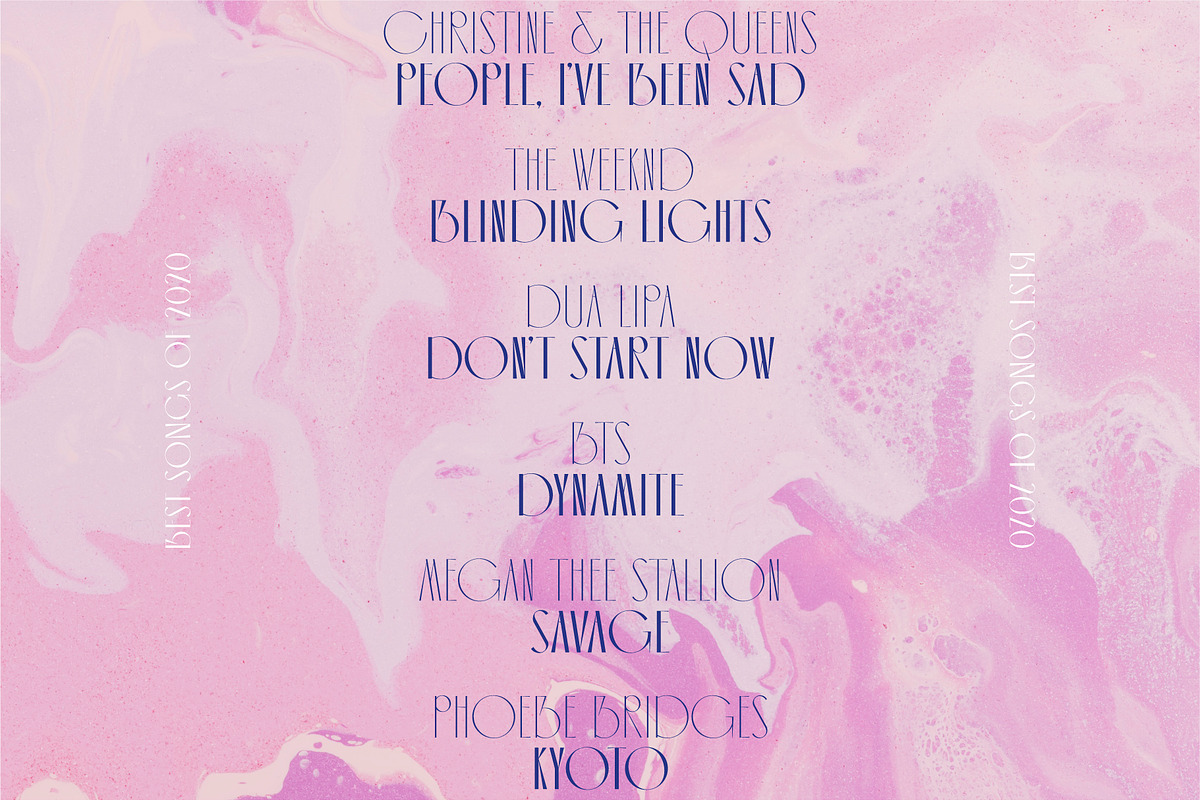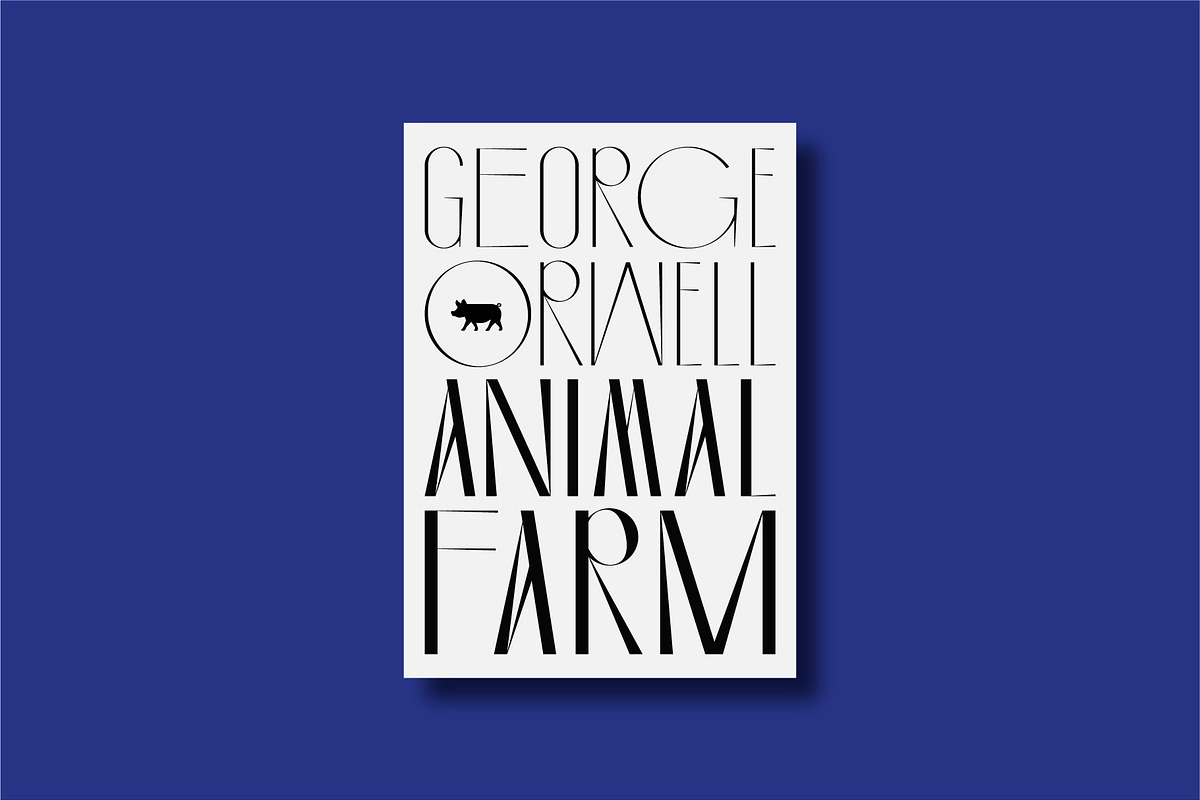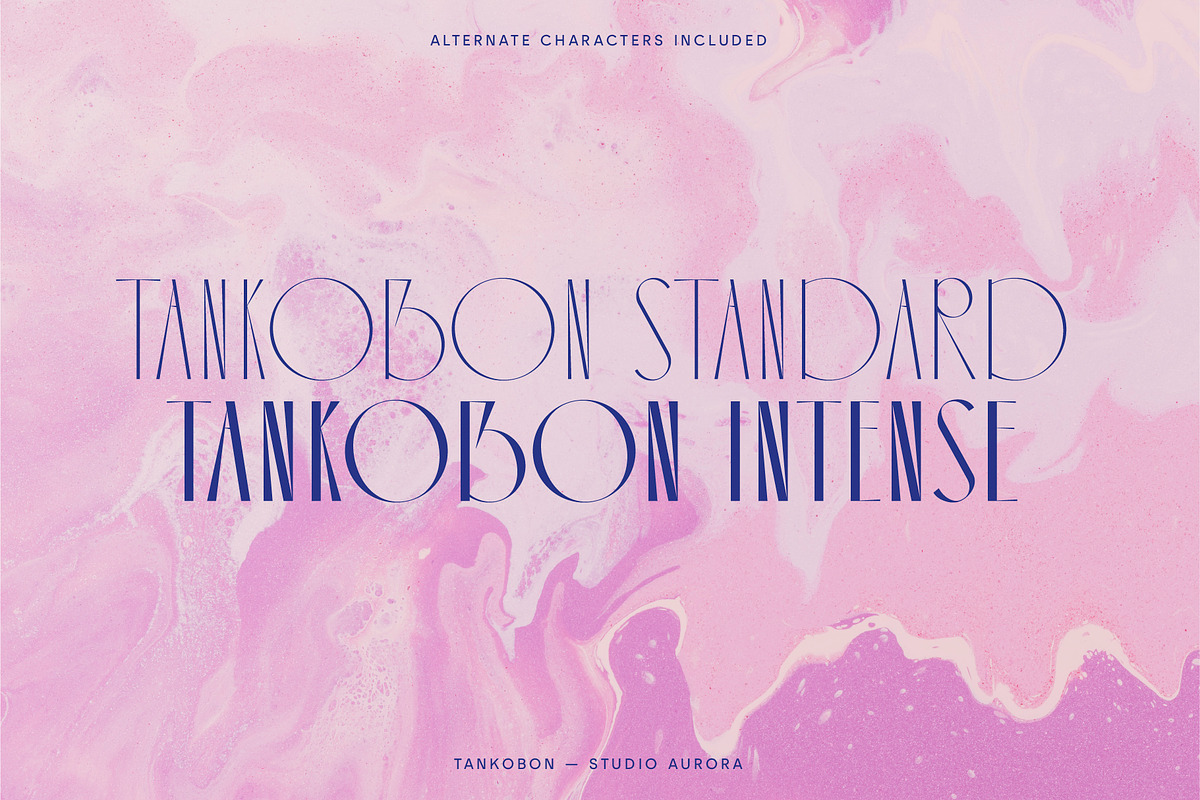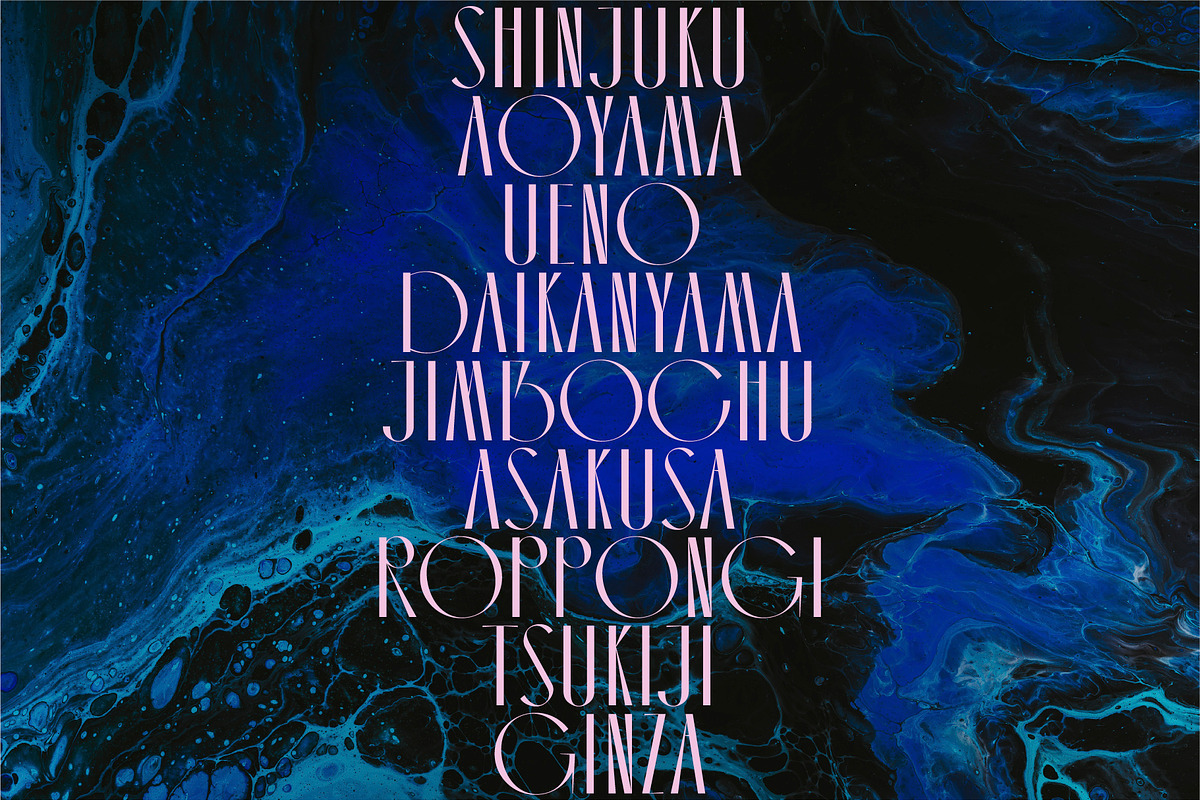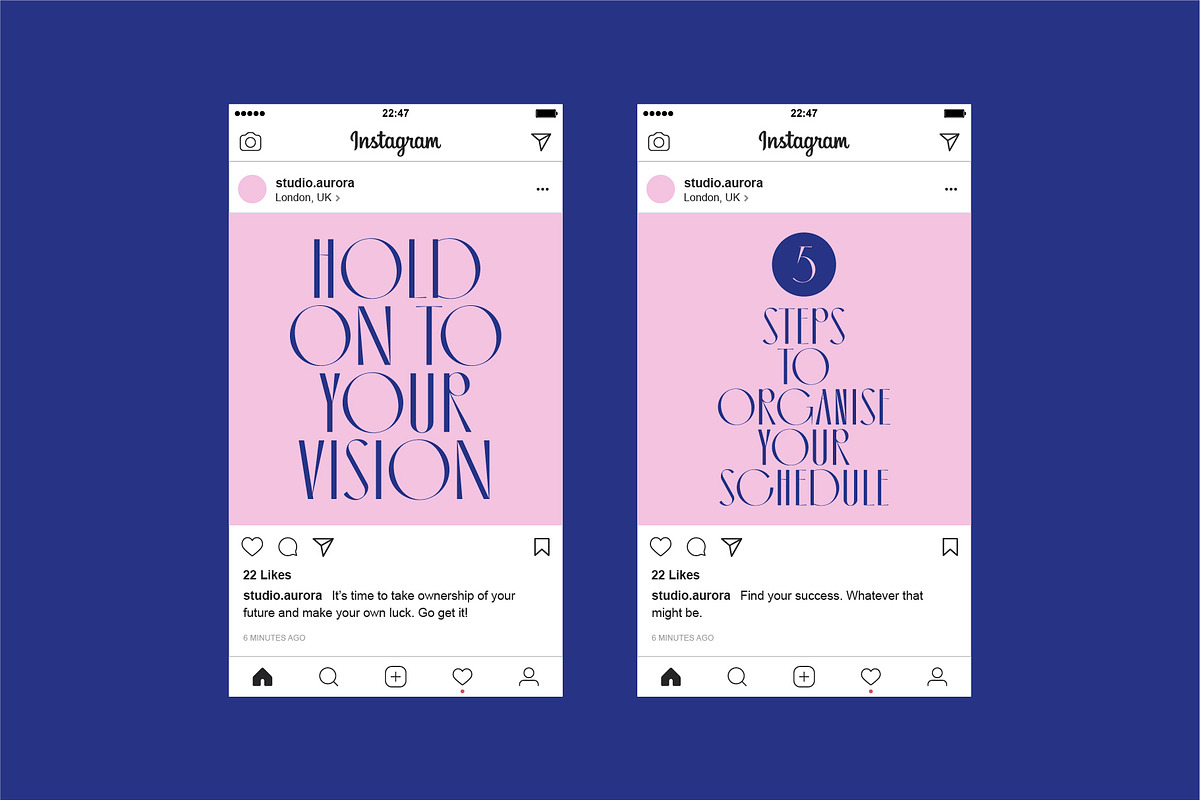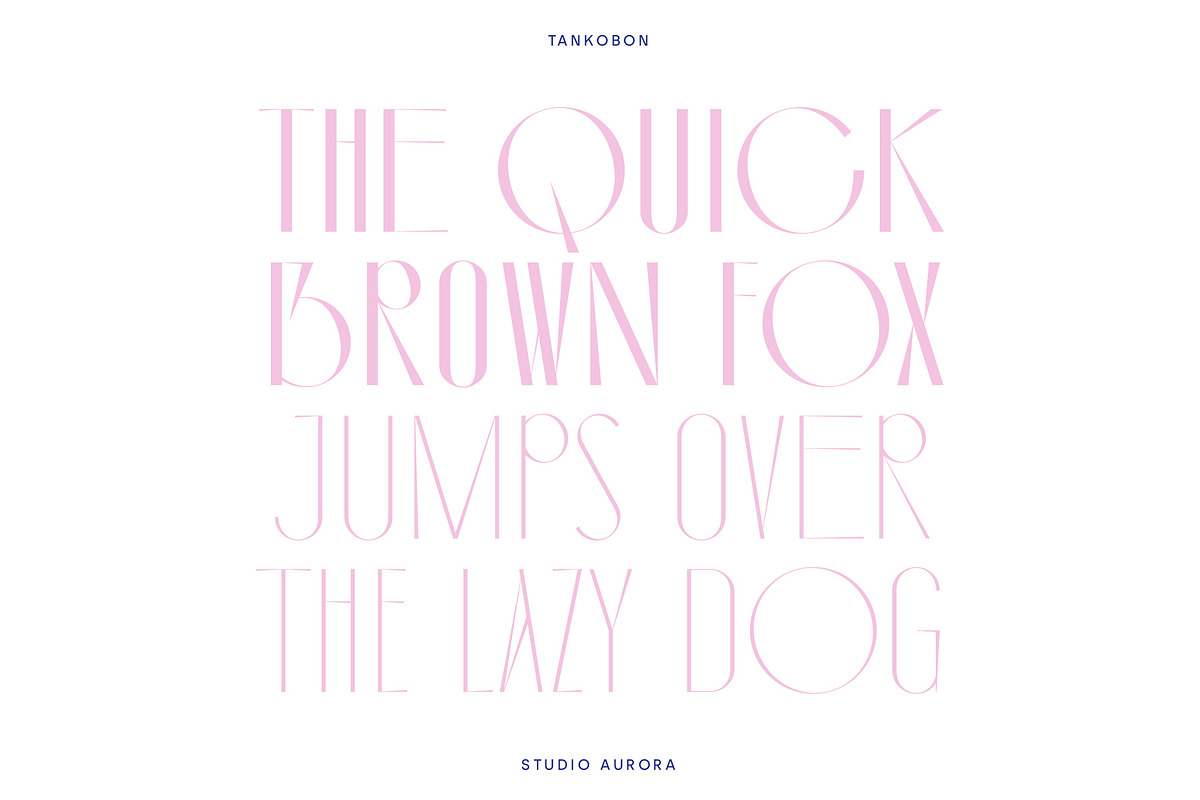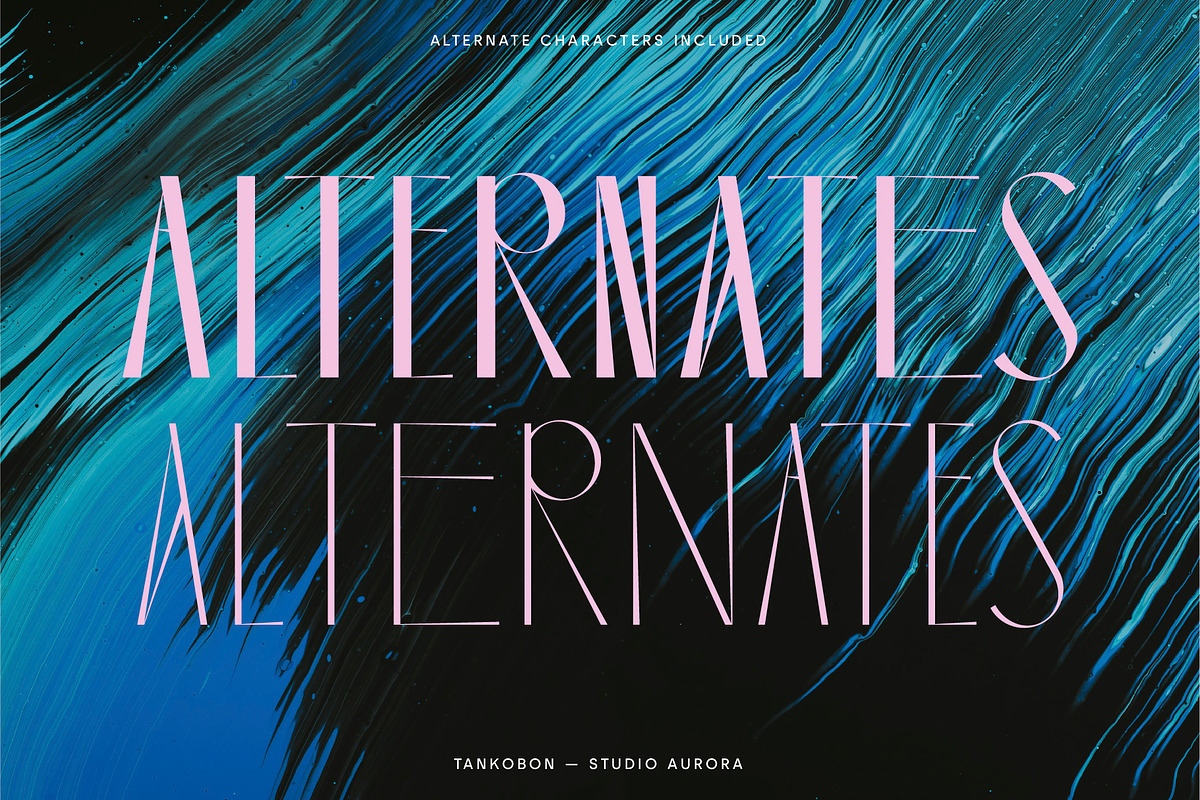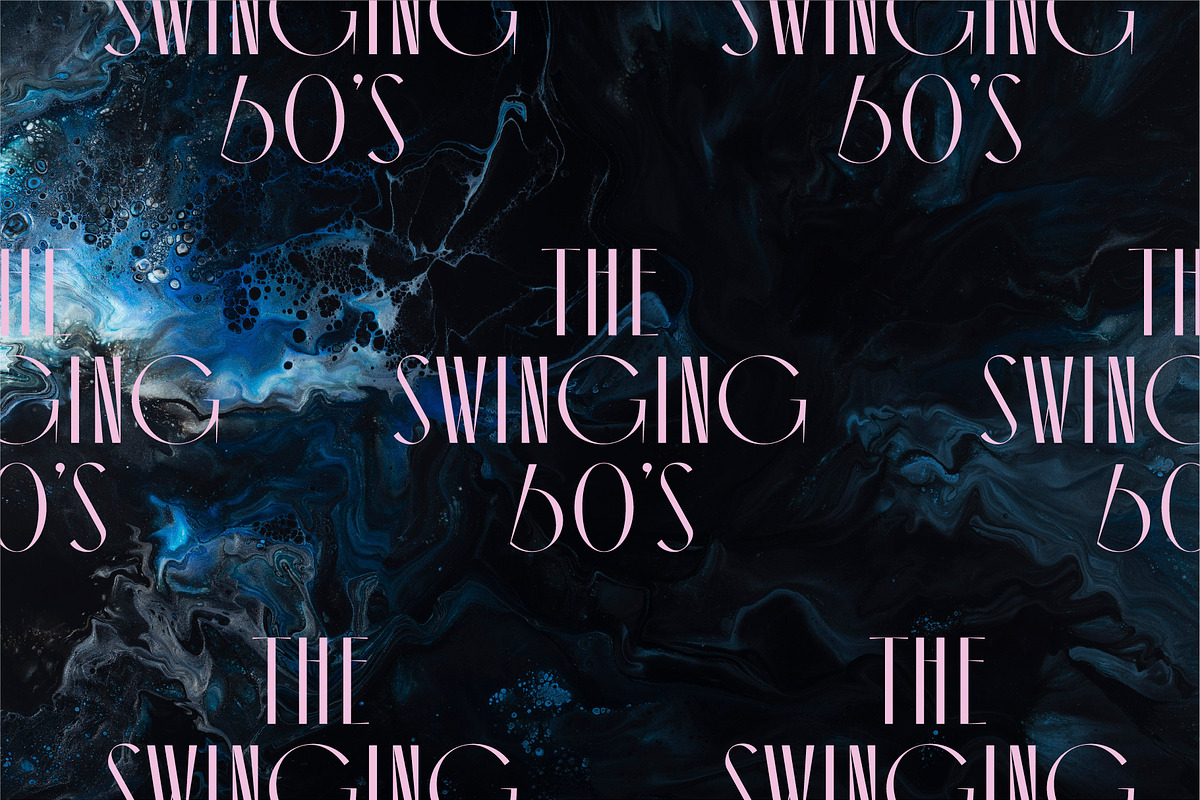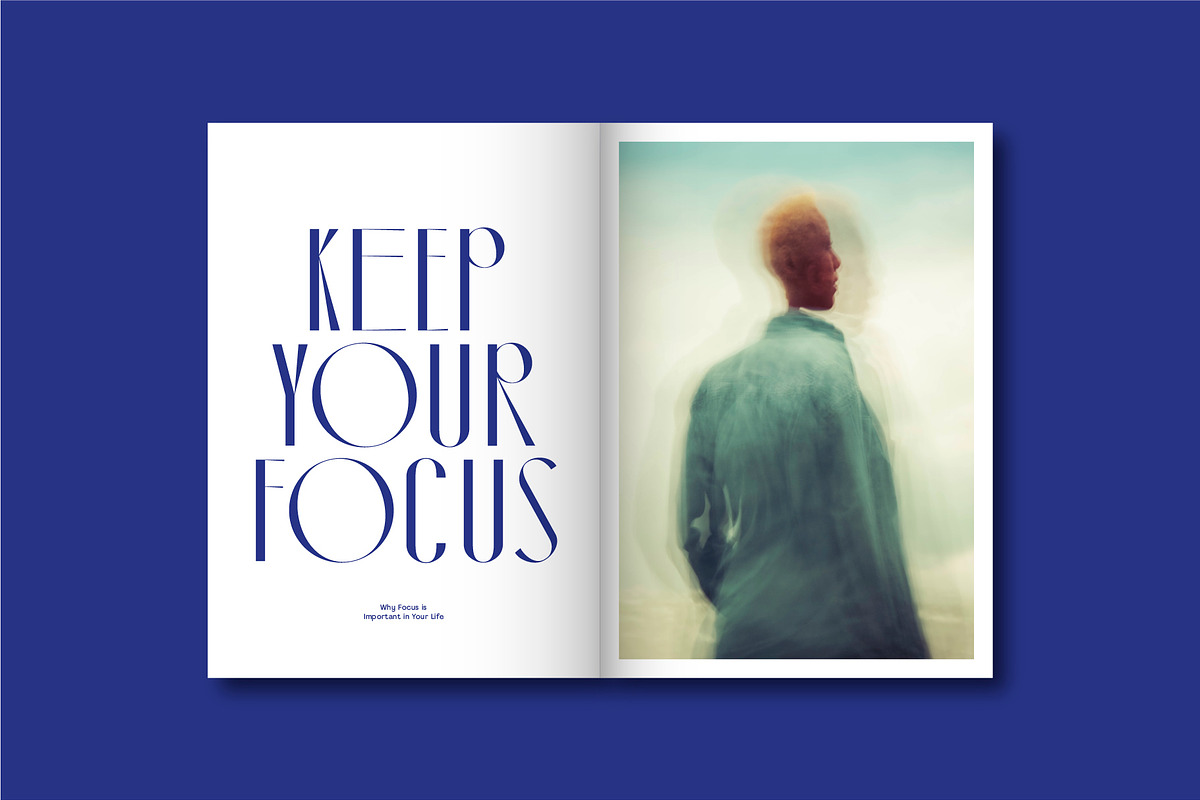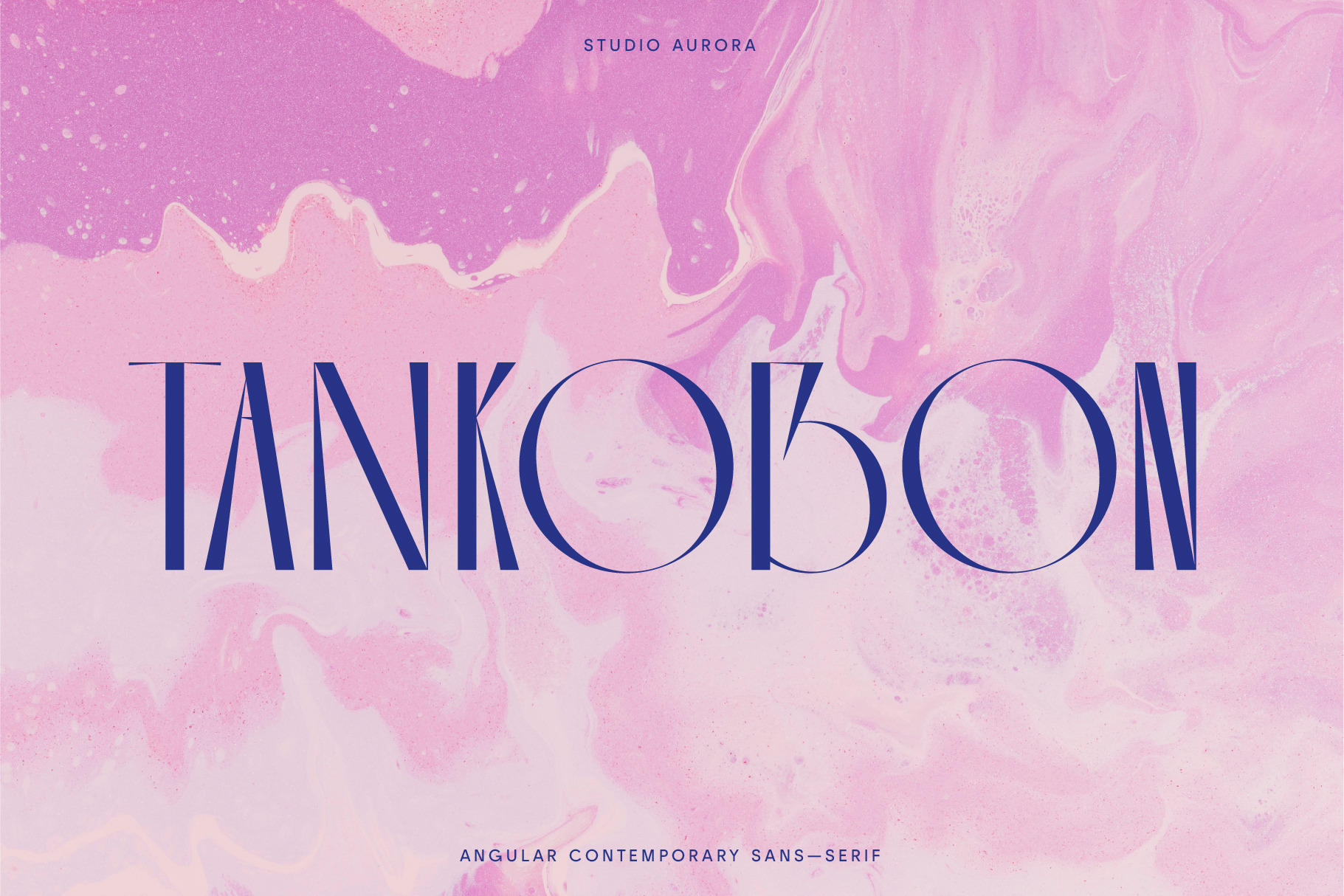
Tankobon – Angular Display Font
Tankobon - A contemporary, versatile, and angular display sans-serif font that comes in two weights and is perfect for creating stand out, unique designs where typography is the focus.
This is a display font that we recommend using in the following types of work; magazines (titles and layouts), logos and branding, invitations, quotes, social media posts, blog headers, posters, and advertising.
- 2 Weights
- Uppercase glyphs
- Alternate glyphs